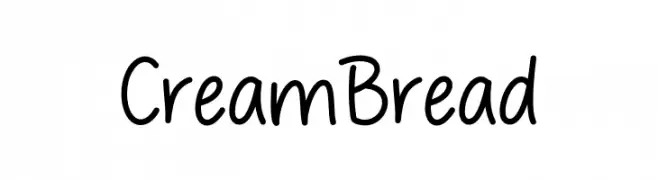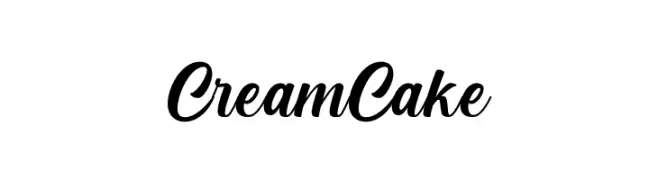
A bold, geometric font with a grunge texture for an edgy, modern look.
A bold, angular italic font with a dynamic and modern style.
A bold, geometric font with angular lines and a modern aesthetic.
A dynamic, cursive script font with bold, sweeping strokes and elegant flourishes.
A bold, ornate blackletter font with medieval-inspired design.
A bold, hand-drawn font with a playful and energetic style.
A playful, hand-drawn outline font with an irregular and artistic style.
A bold, rugged, and hand-drawn font with a playful, cartoonish style.
A bold, italicized font with a reggae-inspired, dynamic style.
A bold, italicized font with angular edges and a dynamic, modern style.
A sophisticated and elegant handwritten font with fluid, interconnected strokes.
Handwritten script with tall, narrow, and expressive letterforms.
A playful, hand-drawn font with a bold, outlined style.
A flowing, cursive font with elegant curves and a sophisticated slant.
An elegant script font with flowing, cursive letterforms and sophisticated style.
A bold, decorative font with a futuristic, geometric design.
A sophisticated script font with fluid, cursive strokes and elegant flourishes.
An elegant script font with flowing, cursive letterforms and intricate flourishes.
A bold, high-contrast serif font with sharp serifs and elegant style.
A bold and elegant serif font with strong vertical strokes and subtle curves.
A bold, playful font with rounded, hand-drawn strokes.
A bold, playful font with a hand-drawn, rounded style.
An elegant, cursive script font with flowing curves and delicate flourishes.
An elegant, high-contrast cursive font with dynamic slant and intricate swashes.
A graceful, handwritten font with a flowing, cursive style.
A dynamic and expressive handwritten font with fluid, flowing letterforms.
A sleek, modern font with a slightly italicized and condensed design.
A bold, decorative font with dynamic curves and a slightly italicized style.